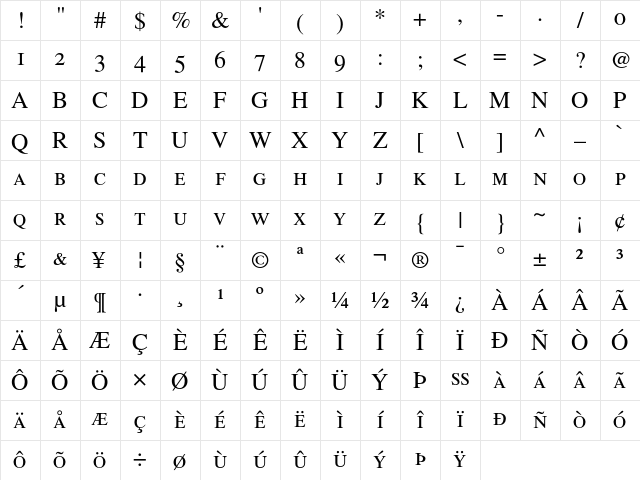
Times Roman Small Caps & Old Style Figures
Style: Roman Small Caps & Old Style Figures
Design Context for Times
Times is a composed and adaptable typeface that performs quietly and consistently across a wide range of design contexts.